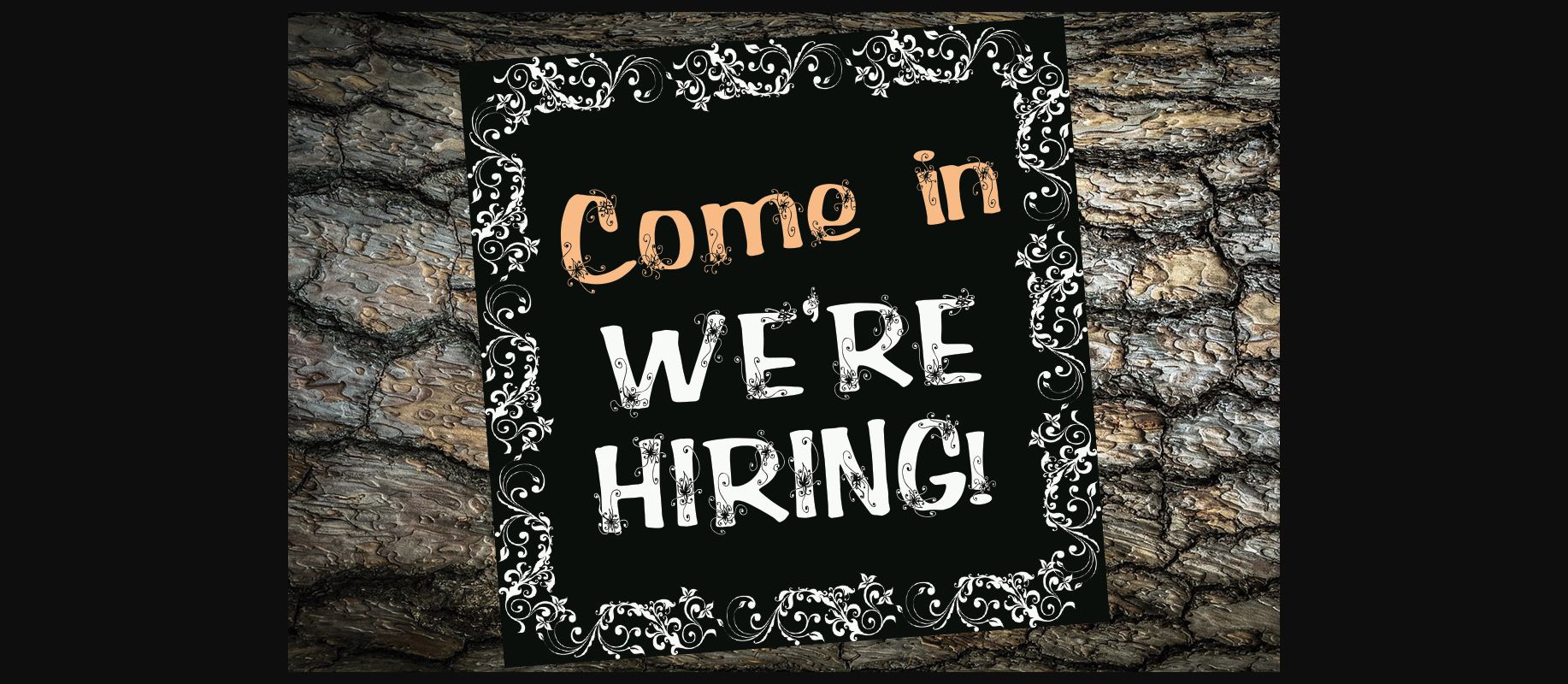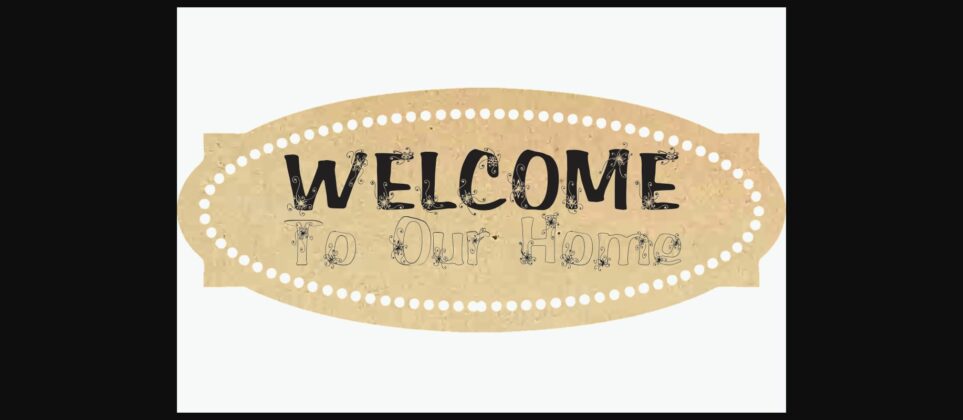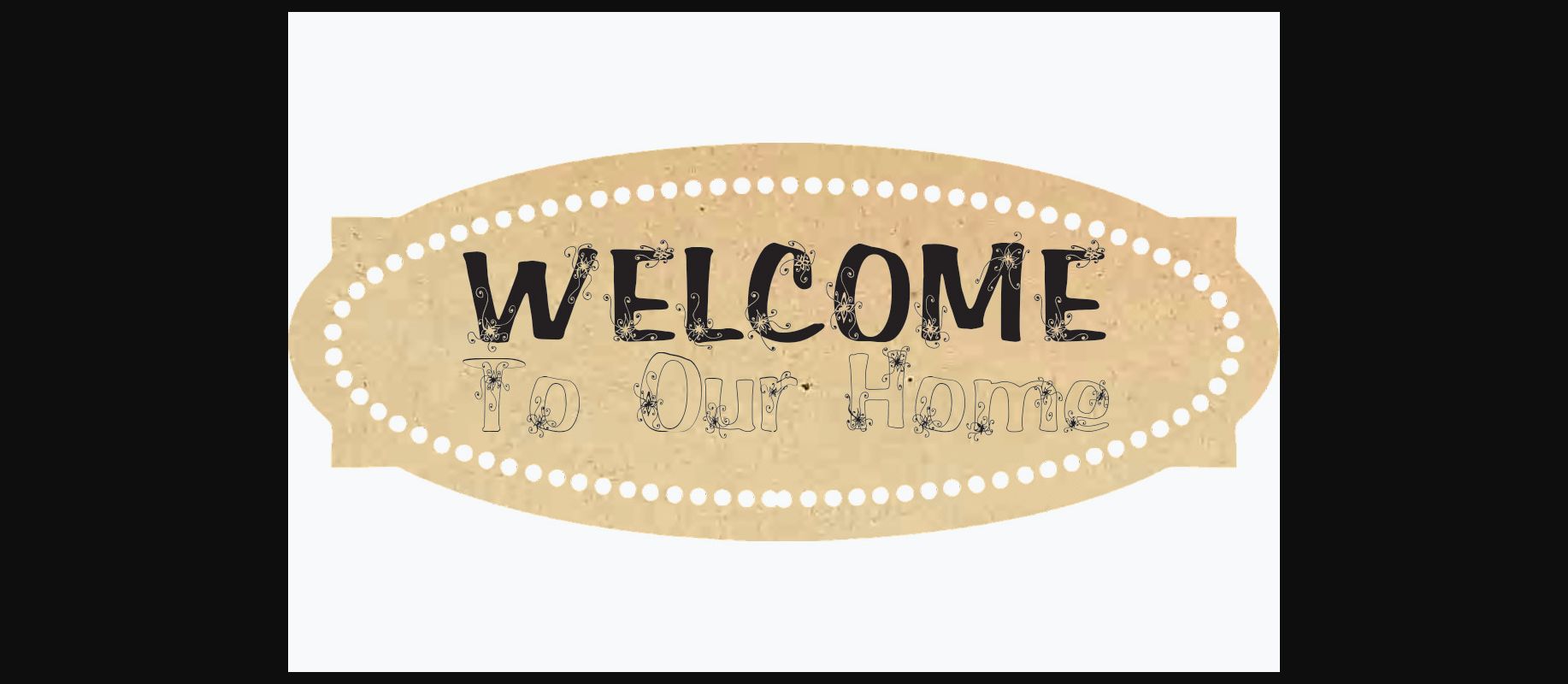
About Rose Blank Font
Rose Blank is a beautiful decorative font that includes unique letters with decorative flowers on each letter. It has an elegant style and
includes two variations; regular and black.